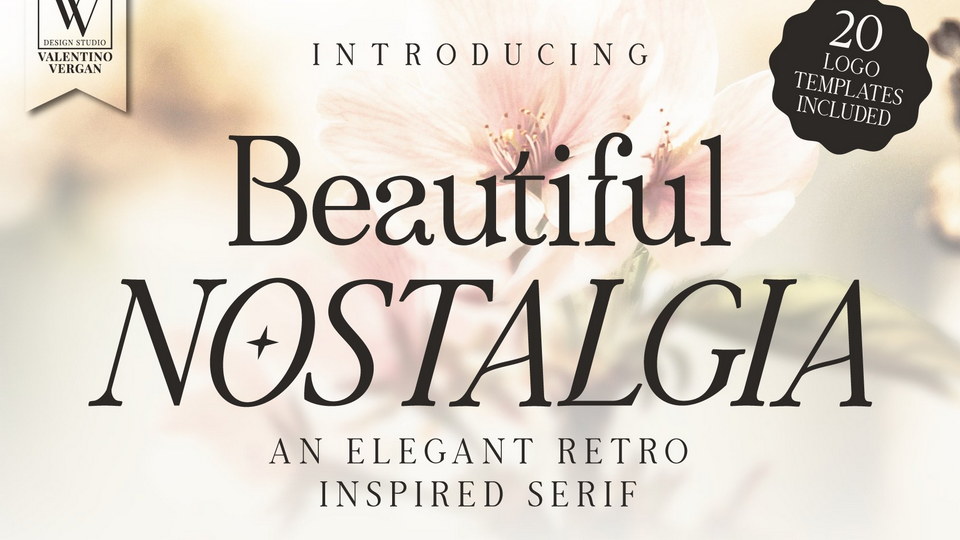
Download Beautiful Nostalgia font, an elegant retro inspired serif typeface, created with the idea of mixing a nostalgic vintage look with a modern look. This unique combination makes Beautiful Nostalgia font trendy and creative, perfect for your next project.
Designer: Valentino Vergan